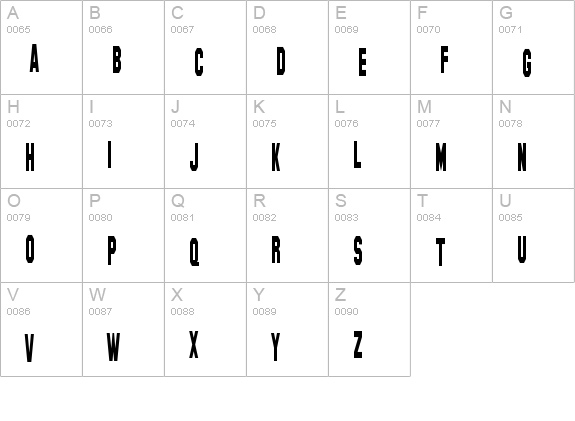
Hollywood Hills Condensed is a distinctive, condensed-width variant in the Hollywood typeface family \xE2\x80\x94 well suited to design and typography projects.
Hollywood Hills Condensed font exudes the glamour and sophistication of the iconic Hollywood Hills. This sleek and stylish typeface captures the essence of old Hollywood with its elegant curves and sharp lines. Perfect for adding a touch of luxury to any design project, from movie posters to high-end fashion branding. And the best part? Hollywood Hills Condensed font is completely free to download at FontsMarket.com. Take your designs to the next level with this stunning font that embodies the glitz and glamour of Hollywood. Download now and elevate your projects with a touch of Hollywood magic.